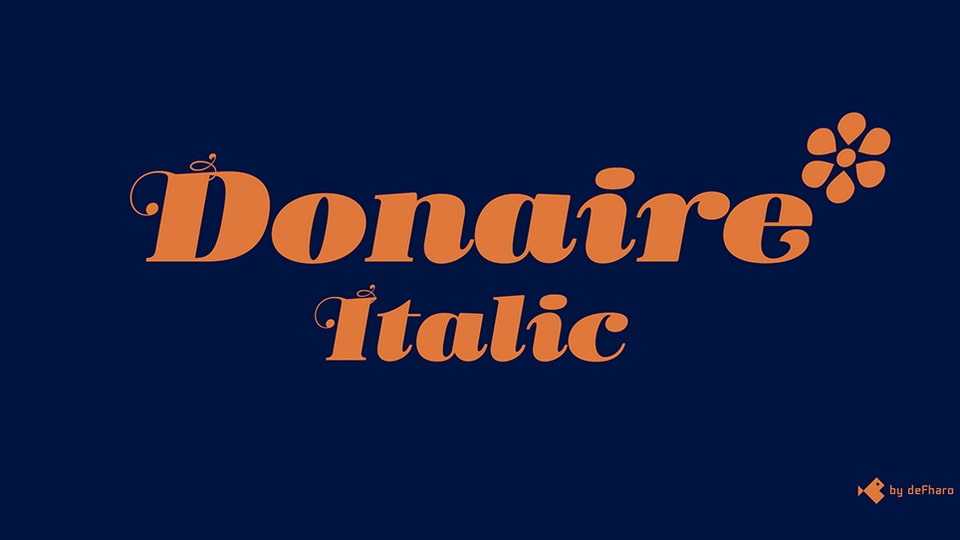
Download Donaire Italic font, my current interpretation of the classic Didonas, a modern Didona that pays homage to the elegant fat-face fonts that emerged in the late 18th century.
Designer: Fernando Haro